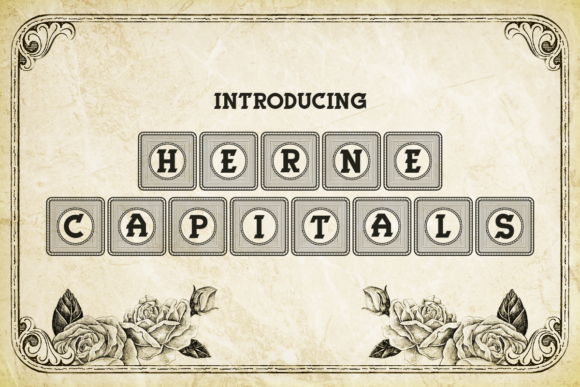
In a world of monotonous and mundane typefaces, Herne Capitals emerges as a beacon of artistic brilliance, a font crafted to ignite the imagination and captivate the senses. It's a decorative font that dances off the page, its every letter a work of art, a testament to the boundless creativity of the human mind.
Herne Capitals is more than just a font; it's an experience. Its carefully crafted glyphs, each a miniature masterpiece, evoke emotions that transcend the written word. From the bold and stately capitals to the graceful and flowing lowercase letters, Herne Capitals possesses an irresistible charm that draws the eye and captivates the heart.
Visualize your designs adorned with the elegance and sophistication of Herne Capitals. Its striking presence will transform ordinary text into captivating headlines, breathe new life into logos, and add a touch of magic to posters and invitations. Its versatility knows no bounds, extending from the grandeur of billboards to the intimacy of personal correspondence.
Unleash your creativity and let Herne Capitals guide you on a typographic adventure. Its meticulously designed characters will add a touch of whimsy to children's books, lend an air of mystery to fantasy novels, and bring a touch of nostalgia to vintage-inspired designs. The possibilities are endless, limited only by the boundaries of your imagination.
Herne Capitals is not just a collection of letters; it's a gateway to a world of artistic expression. It's an invitation to break free from the ordinary and embrace the extraordinary. With Herne Capitals as your creative companion, you hold the power to transform the mundane into the magnificent, the ordinary into the extraordinary.